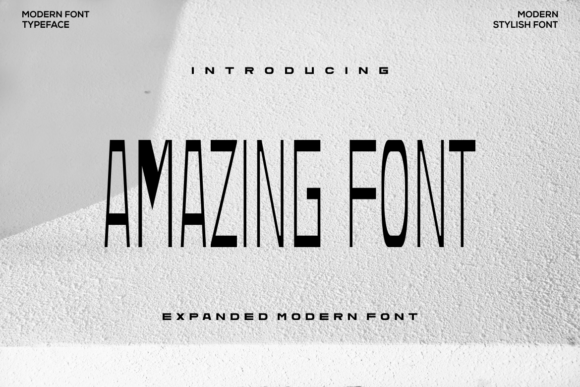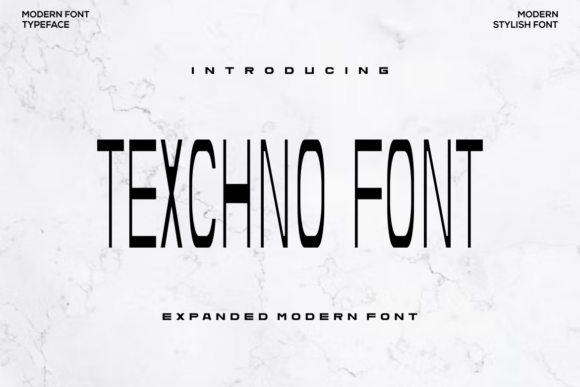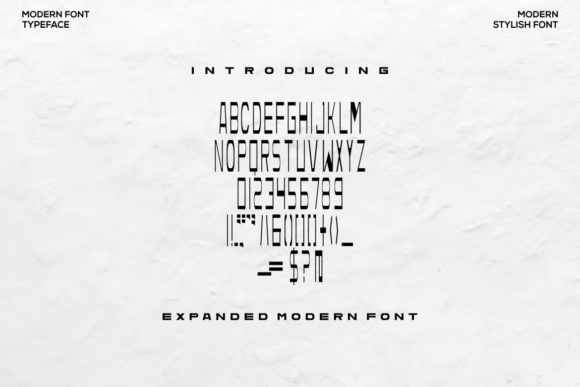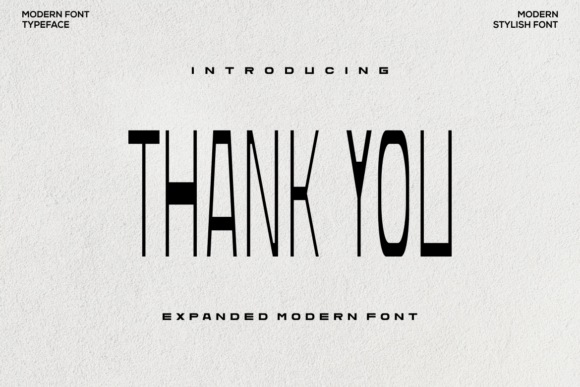
Introduction to Higrasac Font
Imagine you’re brainstorming ideas for a new branding project, and you stumble upon the perfect concept – a bold, eye-catching design that screams ‘you’. The only thing missing is the perfect font to bring your vision to life. That’s where our new product, Higrasac Font, comes in – a high-quality display font designed to make your creative projects truly stand out.
With its authentic and modern feel, Higrasac Font is the perfect addition to any design resource. Whether you’re working on a logo, t-shirt printing, or any other creative project, this font is sure to make your design pop. And the best part? It’s available for free download, so you can experiment with it without breaking the bank. Say goodbye to generic fonts and hello to a world of design possibilities with Higrasac Font.
Key Features of Higrasac Font
- Font size is scalable, allowing for flexibility in design
- High-resolution font suitable for both web and print use
- Unique characteristics include its modern and elegant style
- Perfect for use in logos, headings, and body text in various design projects
Honest Review: Higrasac Font
I recently came across the Higrasac Font, a design resource that caught my attention for its unique and modern aesthetic. After using it in a few creative projects, I’m excited to share my honest review.
- ✨ High quality design that’s perfect for modern and sleek designs
- ⚠️ Limited font styles available, which may not be ideal for projects requiring a wide range of options
- ⚠️ Some users may find the font too bold or overpowering, requiring adjustments to achieve the desired balance
Overall, I’m impressed with the Higrasac Font’s design quality and versatility. While it may have some limitations, it’s a great addition to any designer’s toolkit, especially for those working on modern and creative projects. The free download option is a definite plus, making it an attractive choice for designers on a budget.
Tips for Getting the Most Out of Higrasac Font
Use the Higrasac Font with a transparent background to create a clean and minimalist design. Experiment with different font sizes and styles to add visual interest to your project. Combine the Higrasac Font with other design resources, such as graphics and images, to create a unique and eye-catching design.
The Higrasac Font is ideal for creative projects, such as graphic design, branding, and digital art. It’s also suitable for use in presentations, documents, and websites that require a high-quality, unique font.